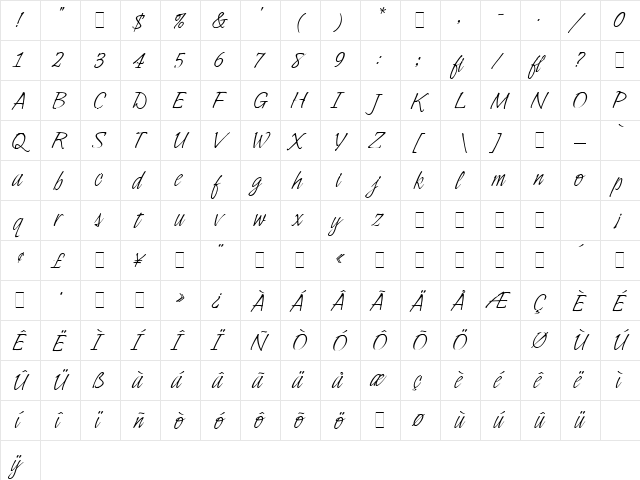
Indy Italic LET Plain
Design Context for Indy Italic LET Typeface
Indy Italic LET is a composed and adaptable typeface that performs quietly and consistently across a wide range of design contexts. The dynamic lean of this cut emphasises speed and emphasis in any layout.
Pro Tip: Use Indy Italic LET for emphasis, pull quotes, and subheadings where its slanted energy can add rhythm to the layout.